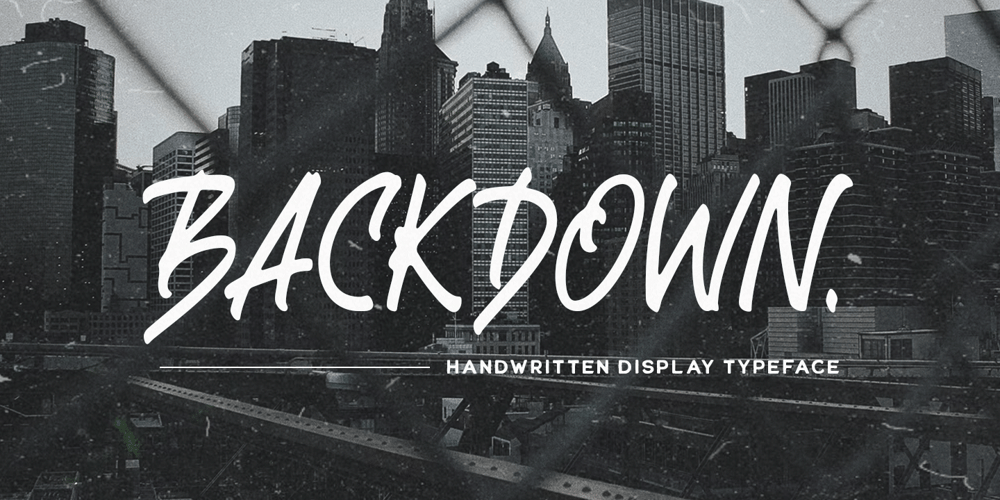
Backdown Font Family was designed by Hendry Juanda and published by Letterhend. Backdown contains 1 styles and family package options. Introducing, Backdown- a handwritten display typeface. This type of font perfectly made to be applied especially in logo, and the other various formal forms such as invitations, labels, logos, magazines, books, greeting / wedding cards, packaging, fashion, make up, stationery, novels, labels or any type of advertising purpose.Features : uppercase & lowercase numbers and punctuation multilingual alternates and ligatures PUA encoded We highly recommend using a program that supports OpenType features and Glyphs panels like many of Adobe apps and Corel Draw, so you can see and access all Glyph variations. How to access opentype feature : letterhend.com/tutorials/using-opentype-feature-in-any-software/